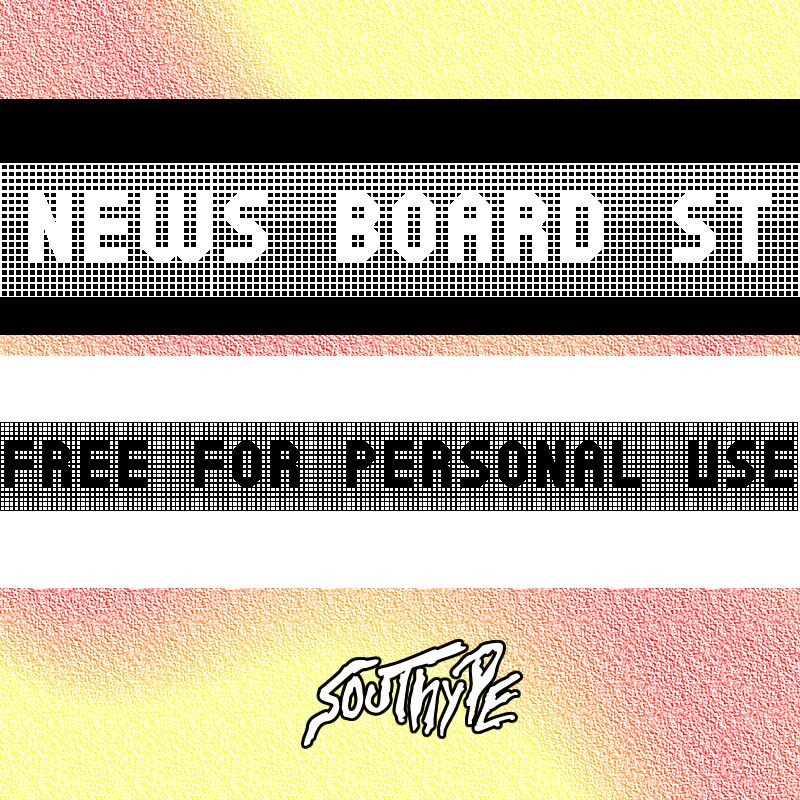
"News Board St" is a striking, digital display font designed by Southype. Its bold, geometric letterforms and pixelated aesthetic evoke a sense of technological prowess and modern sensibility.
The font's clean, geometric lines and sharp edges lend it a bold, assertive presence, making it well-suited for headlines, branding, and eye-catching typographic compositions. "News Board St" excels in digital and print applications that require a bold, contemporary visual impact, such as signage, posters, and user interfaces.
Its distinctive character can elevate the visual identity of various design projects, from editorial layouts to packaging and product design.